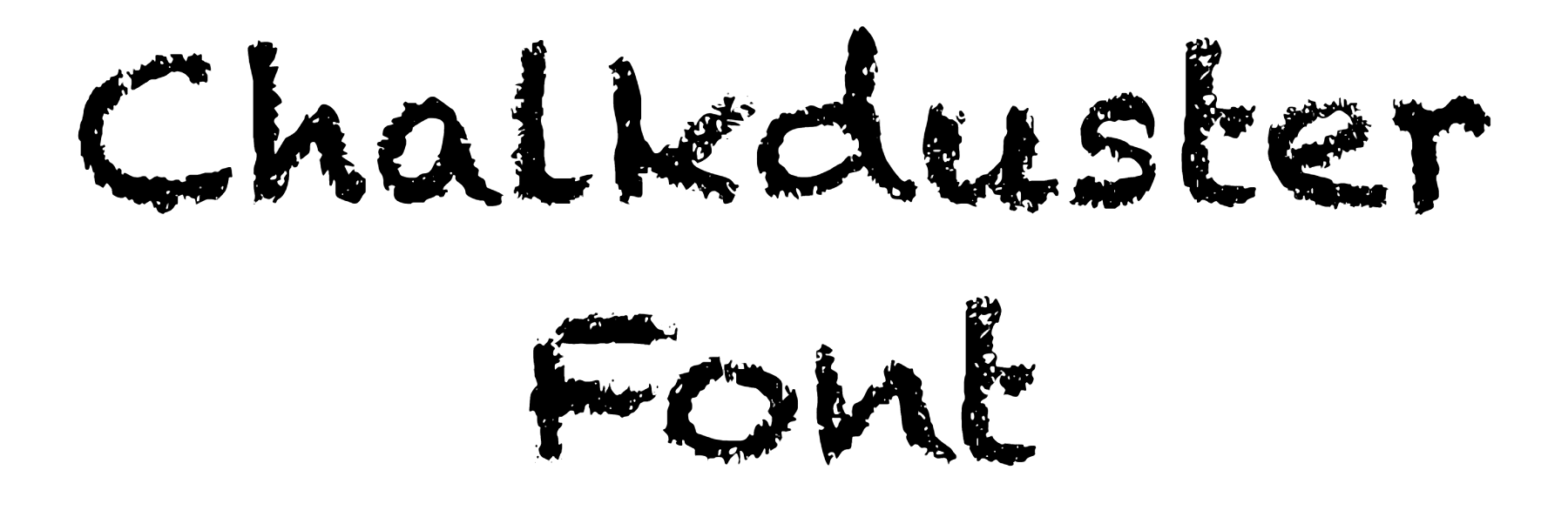
ChalkDuster Font
Chalkduster is an iconic, highly textured display typeface famously designed for Apple and released as a core system font starting with Mac OS X Snow Leopard (10.6).
What You Can Type With ChalkDuster
With complete upper and lowercase letters and all ten digits, ChalkDuster is ready for real wording, not just a single headline. Everyday marks like &, !, ? and @ are there too. Thanks to its accented letters, it also works for Spanish, French, German, Portuguese and Italian, not just English.
Where ChalkDuster Works Best
Think of ChalkDuster for posters, logos and eye-catching headlines. Use it for one standout word or headline and let simpler fonts handle the rest.
Does ChalkDuster support accented letters?
Yes. ChalkDuster includes the accented letters needed for Spanish, French, German, Portuguese and Italian, so it works for more than just English.